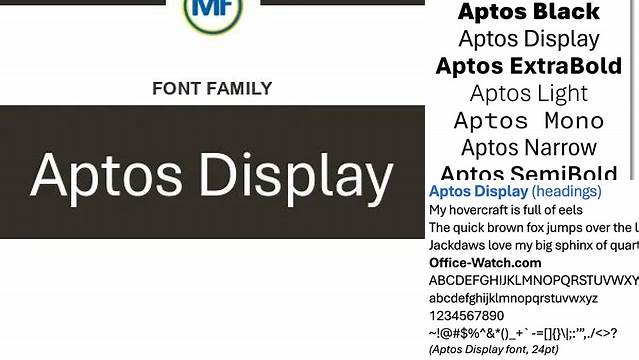
Hey everyone! Are you looking for a sleek, modern font to spice up your design projects? Well, you're in luck! Today, we're diving into the world of the Aptos Display font – a fantastic choice for headings, titles, and anything that needs a touch of contemporary flair. And the best part? We'll explore how to get your hands on the Aptos Display font for free, legally, and hassle-free. Let's jump right in and discover everything you need to know about this amazing font and how to download it. We'll cover where to find it, how to install it, and even some tips on how to use it effectively in your designs. Whether you're a seasoned graphic designer or just starting out, this guide is designed to help you get the most out of the Aptos Display font. So grab your coffee, and let's get started on this font adventure! We'll cover everything from the font's characteristics to the practical steps of getting and using it. This should get you started with your Aptos Display font journey, ensuring that you have all the information you need to start creating stunning designs. Let’s go!
H2: Unveiling the Allure of the Aptos Display Font
Alright, guys, let's talk about what makes the Aptos Display font so special. This font is more than just a collection of letters and numbers; it's a design statement. It's known for its clean lines, modern aesthetic, and excellent readability, making it perfect for grabbing attention. Unlike some fancy, hard-to-read fonts, the Aptos Display font balances style and functionality. Its versatility means it's suitable for a wide range of projects, from website headings to eye-catching posters. The Aptos Display font has a distinct personality that can elevate your designs. It’s designed to be both visually appealing and incredibly practical.
The font’s design is inherently modern. Its subtle curves and precise angles give a sense of sophistication without being overly complex. This balance allows it to be used across various design disciplines, from digital interfaces to print media. The font is crafted with careful attention to detail, making sure each character complements the others, creating a visually harmonious experience. Aptos Display isn’t just a font; it's a design asset that empowers you to communicate your message with confidence and clarity. When you choose the Aptos Display font, you’re not just selecting a typeface; you're making a statement. You're showcasing your commitment to quality and an eye for modern design. The clean, uncluttered appearance means your message will stand out without being overshadowed by the font itself. That’s why it's popular among designers who want to create a lasting impression. The ability of the Aptos Display font to adapt to different design contexts is another crucial aspect of its allure. So, if you want to add a touch of elegance and modernity to your projects, the Aptos Display font might be your new best friend.